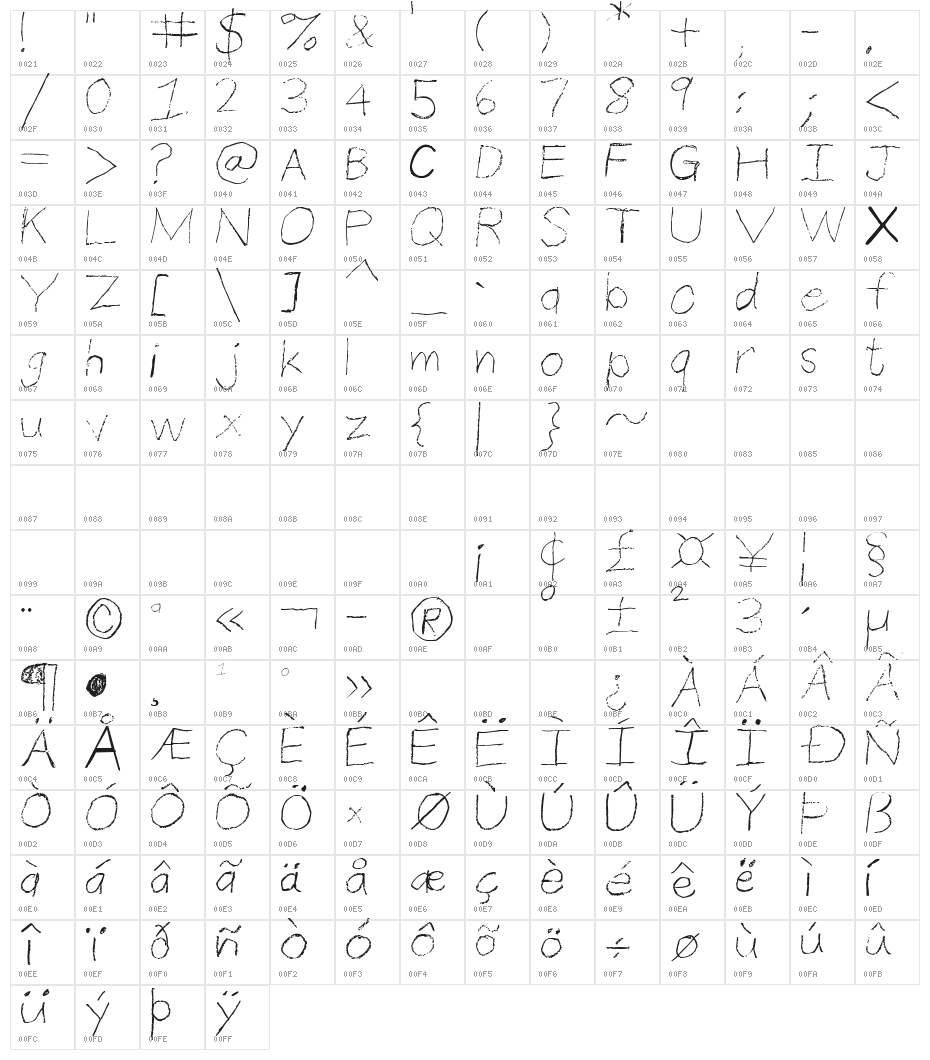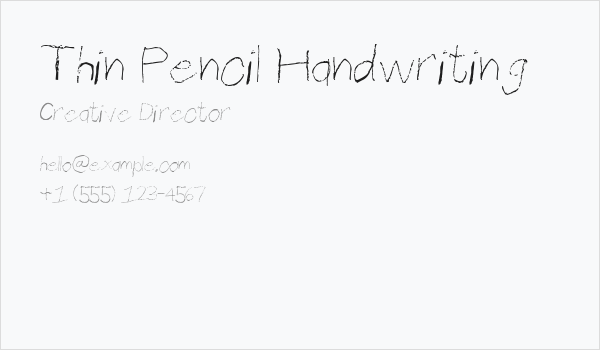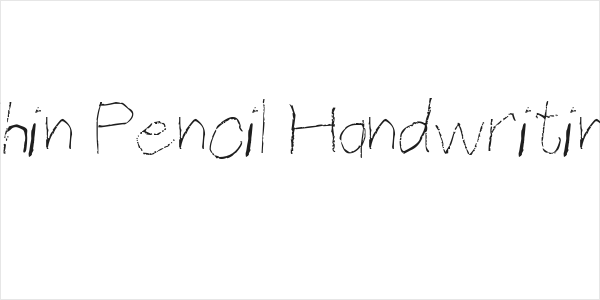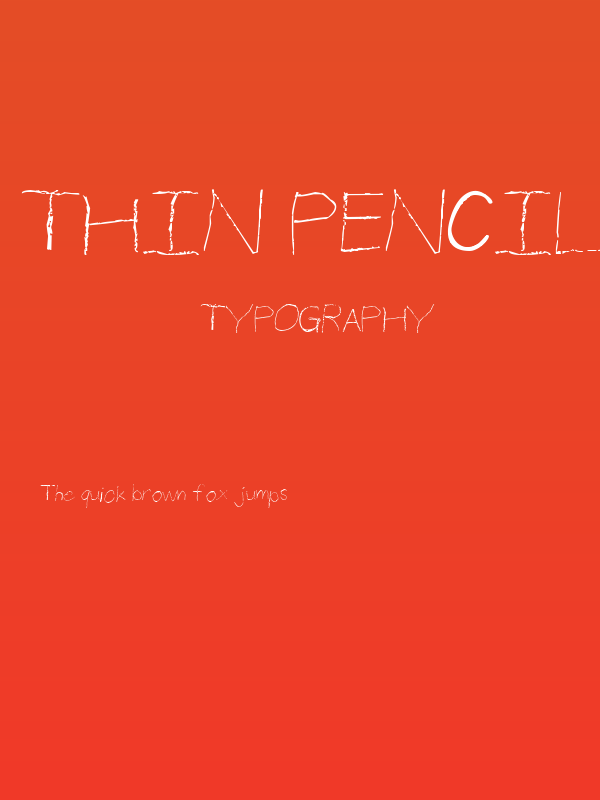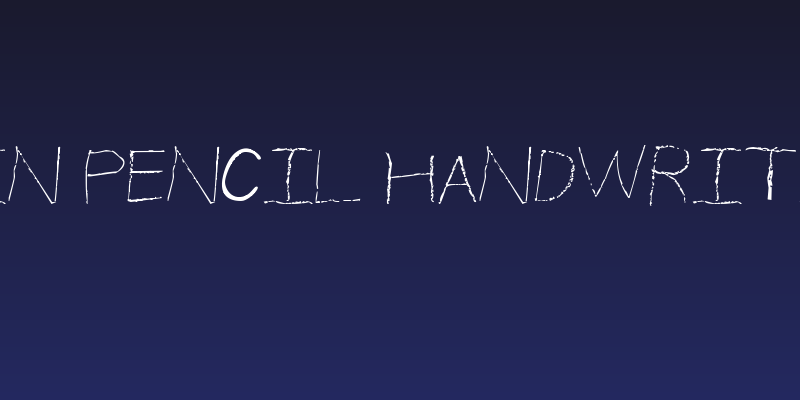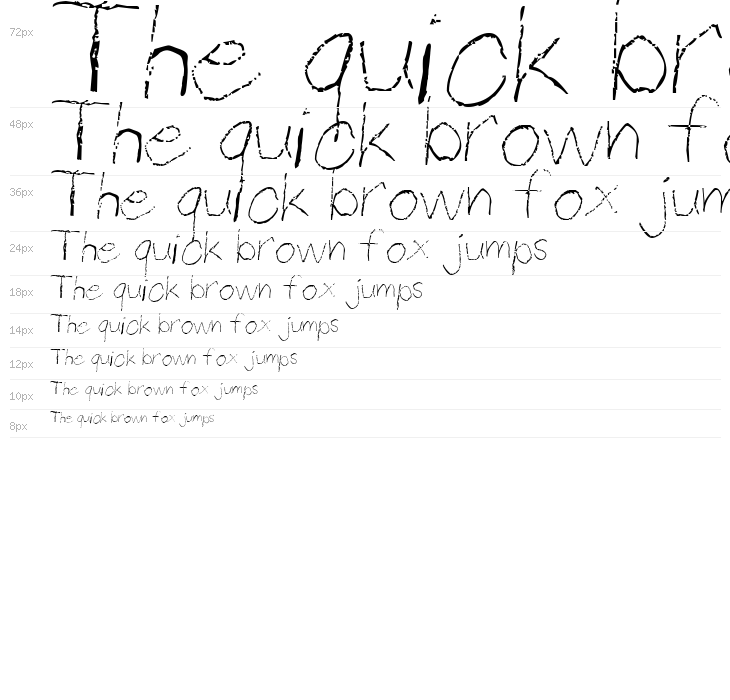
Thin Pencil Handwriting Font
Thin Pencil Handwriting Description
This font embodies a thin, pencil-like handwriting style, characterized by its delicate and slightly irregular strokes that mimic the natural flow of hand-drawn letters. The uppercase and lowercase letters maintain a consistent height, with subtle variations that add a personal touch. The numerals and special characters follow the same aesthetic, providing a cohesive look across all glyphs. The texture of the strokes gives an impression of a lightly sketched appearance, enhancing its authenticity and charm. This font is ideal for projects that require a personal, informal touch, such as greeting cards, personal notes, or creative projects that aim to convey warmth and individuality.
| Overall Style | Casual, Hand-drawn |
| Use Case | Creative projects, Personal notes, Informal designs |
| Proposed Projects | Ideal for greeting cards, personal notes, creative projects, and any design requiring a personal, informal touch. |